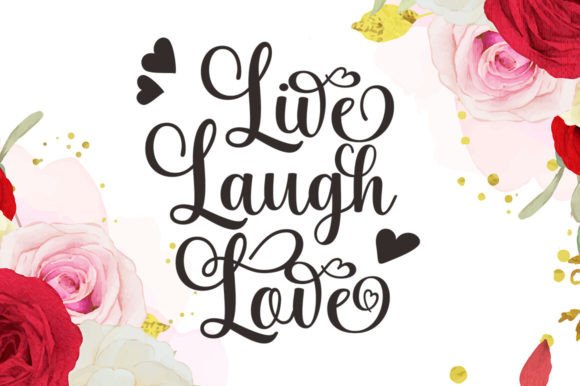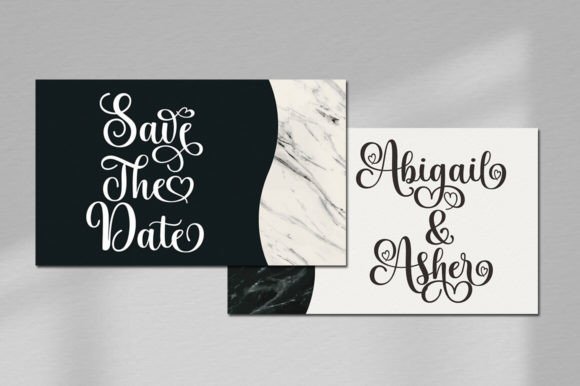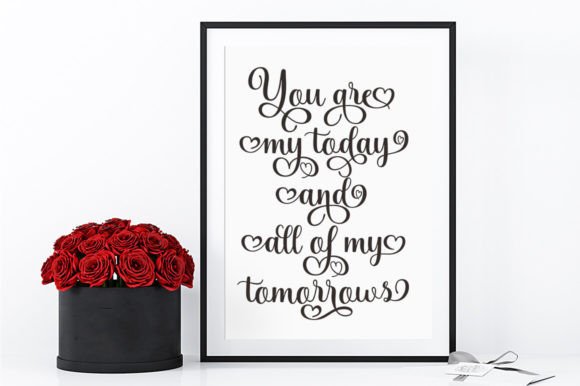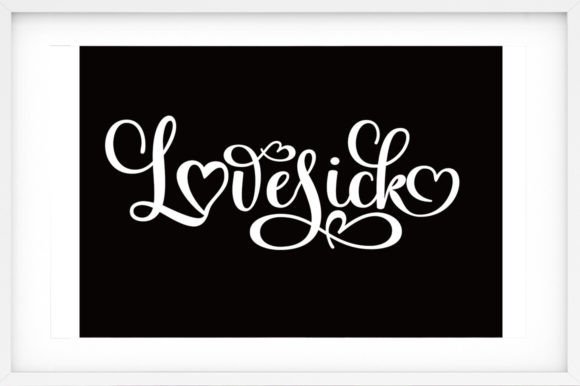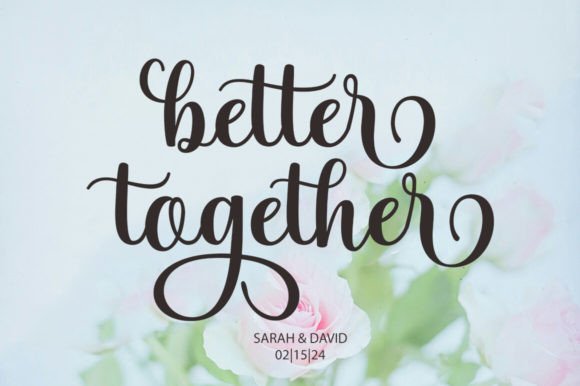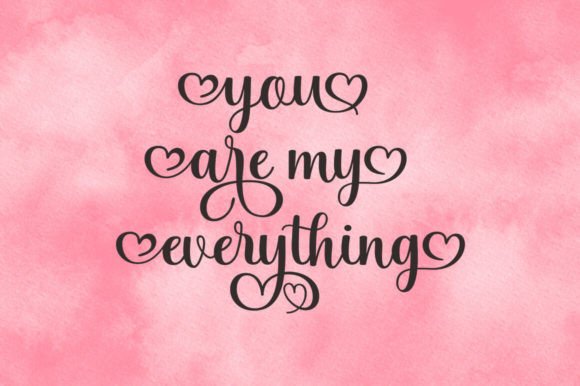
Introduction to Hello Valentina Font
Hello Valentina is a stylish and feminine script font exuding elegance and sophistication.
Its graceful curves and fluid strokes emulate handwritten calligraphy with a modern twist Perfect for wedding invitations, branding, and beauty-related designs, Hello Valentina adds a touch of charm and refinement to any project with its timeless appeal.
Key Features of Hello Valentina Font